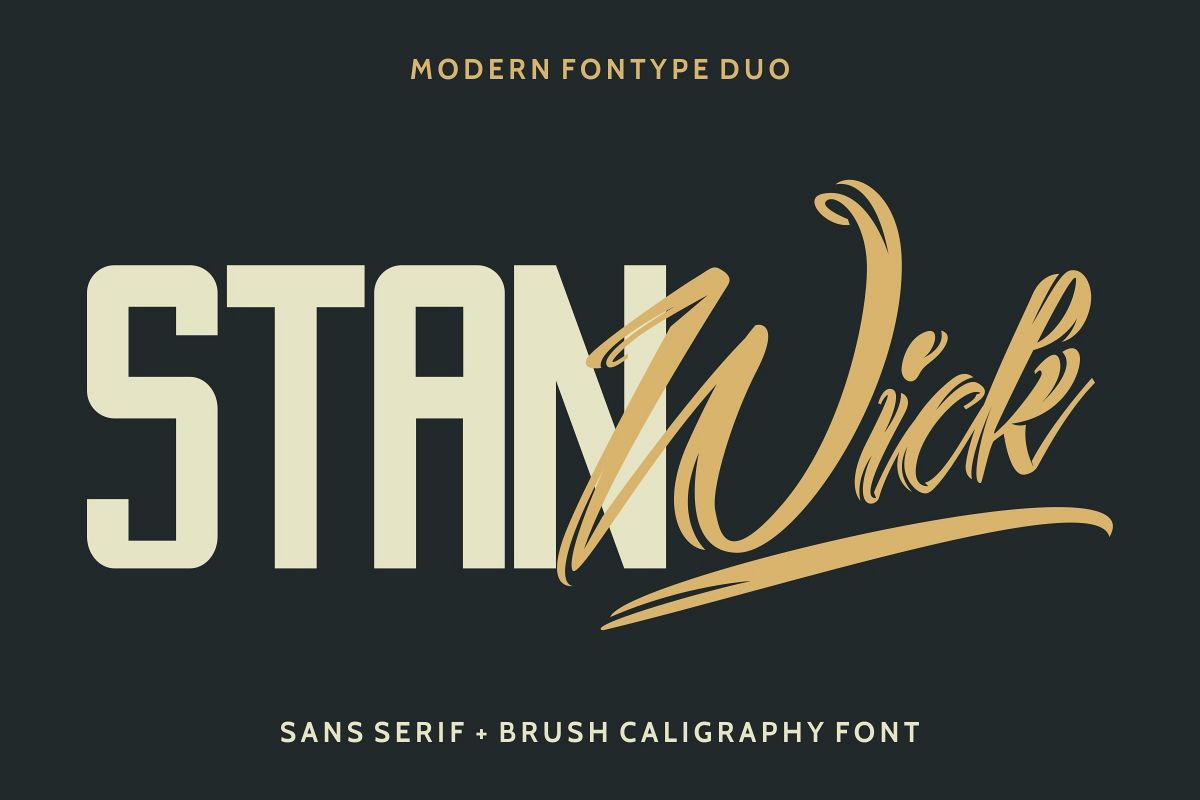
Stanwick
Hi Everyone! Please meet our newest font : Stanwick ! It’s Three in One font family : Regular Serif, Outline and Calligraphy Script. This is a modern yet classic font It has a fresh, elegant, natural and stylish glyph.Stanwick is a sophisticated styling font which will be perfect for branding, logo, photography, signature, watermark, card, signage, flyer, brochure, social media, banner etc. There are many industries that is suitable for this font : food and beverage, clothing, fitness, gym, sport, real estate, services, law firm, etcIt is so elegant, classy, strong and beautiful.This font will Work on PC & Mac with Simple installations. Accessible in the Adobe Illustrator, Adobe Photoshop, Adobe InDesign, even work on Microsoft Word. It’s also PUA Encoded Characters – Fully accessible without additional design software.Purchase with confidence! =)